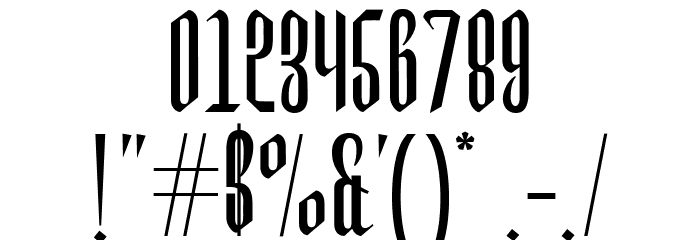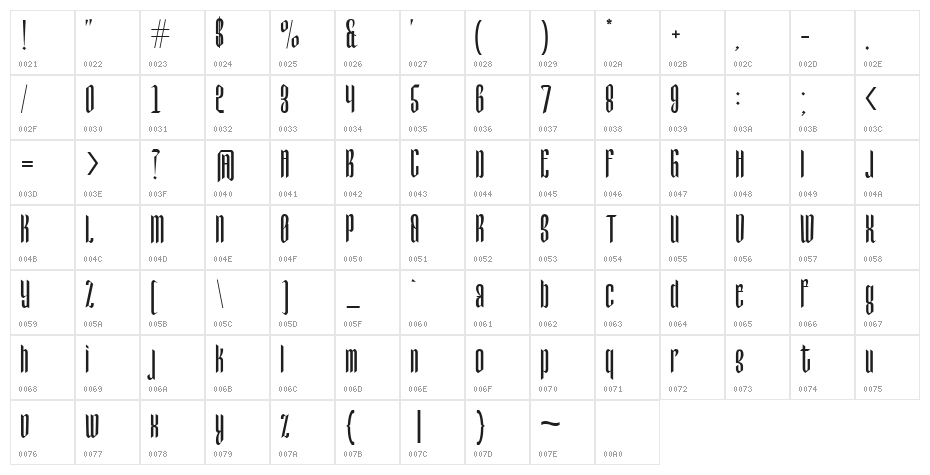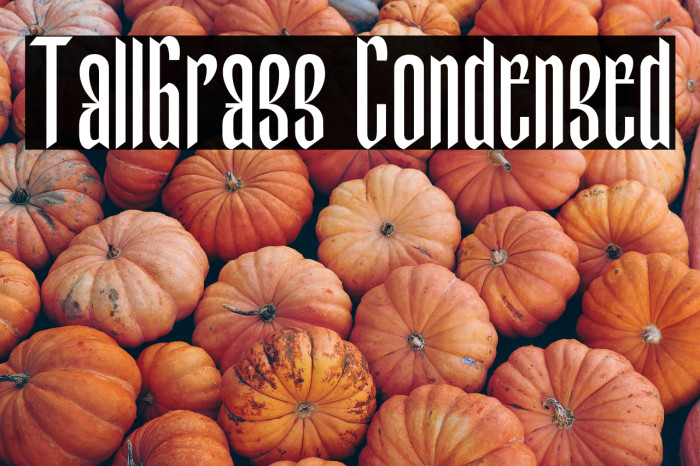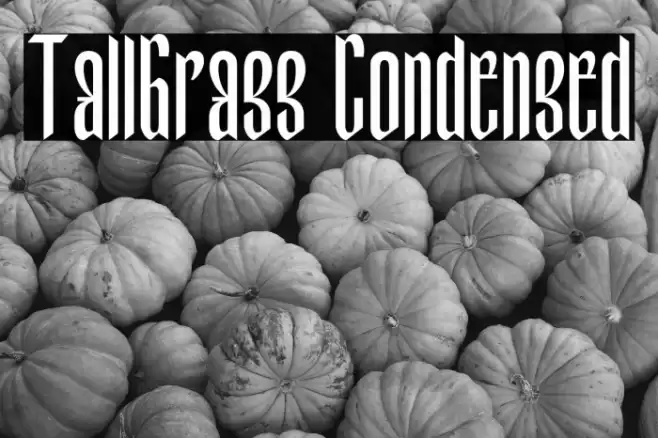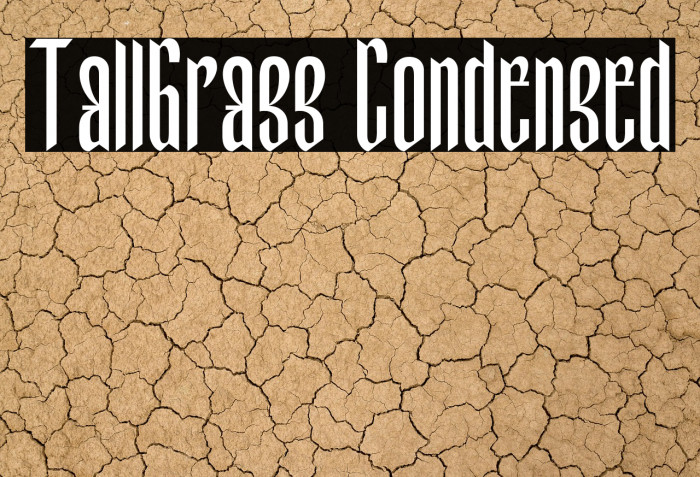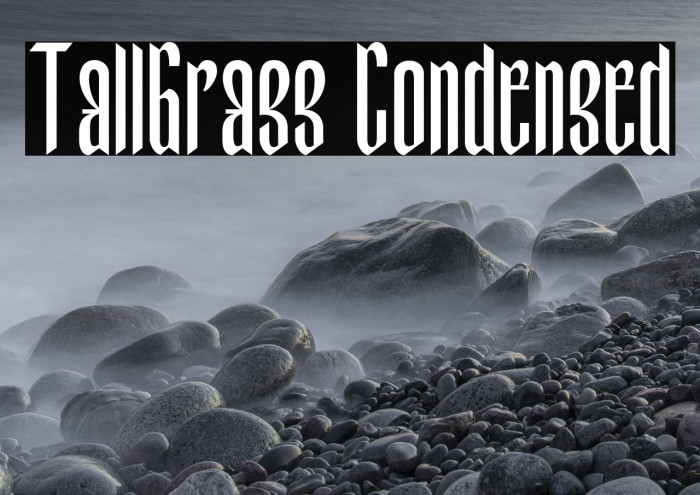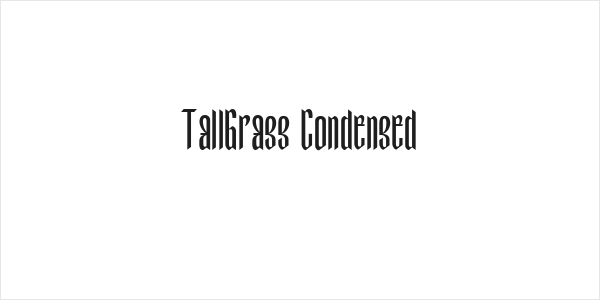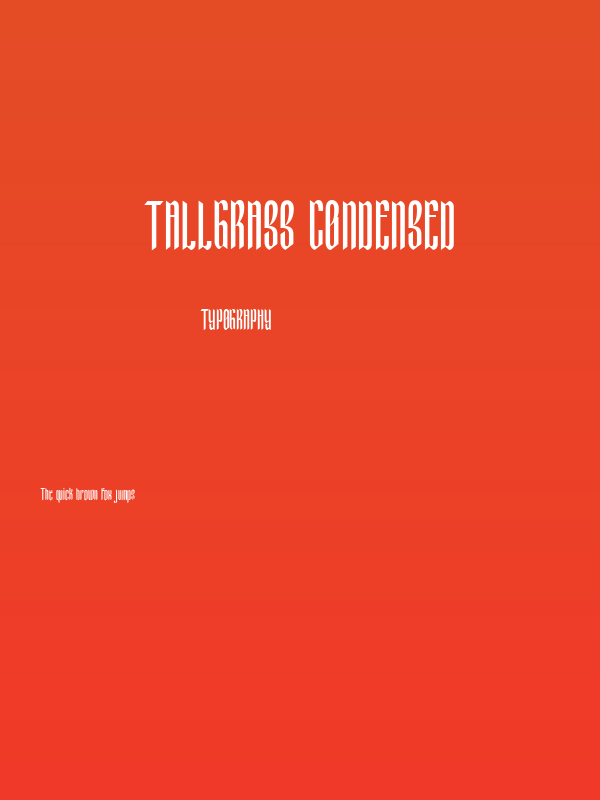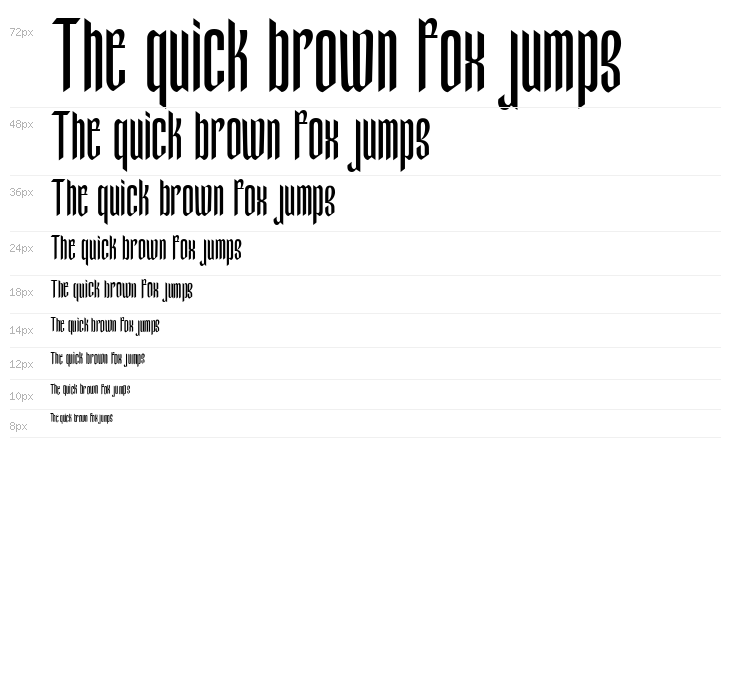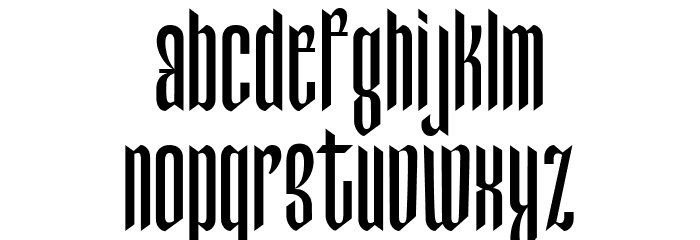
TallGrass Condensed Font
TallGrass Condensed Description
This font features a tall and narrow design, characterized by its condensed letterforms and sharp, angular edges. The uppercase and lowercase letters maintain a consistent height, contributing to a uniform appearance. The numerals are equally elongated, enhancing the overall verticality of the typeface. Special characters are designed with the same condensed style, ensuring cohesion across all elements. The font's unique style is reminiscent of vintage signage, with a modern twist that makes it suitable for contemporary design projects. Its bold presence is ideal for making a strong visual impact.
Overall StyleVintage
Proposed ProjectsIdeal for poster design, branding, and editorial headlines where a strong, impactful style is desired.